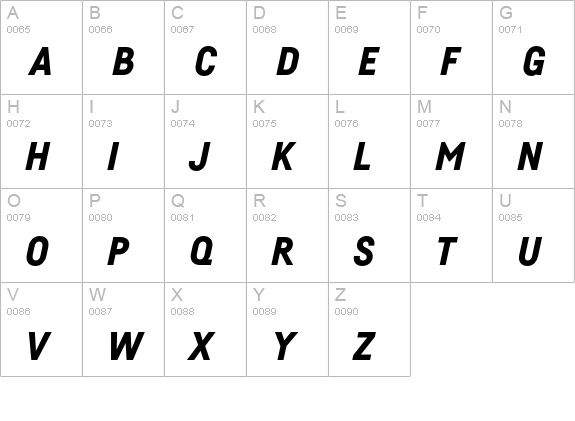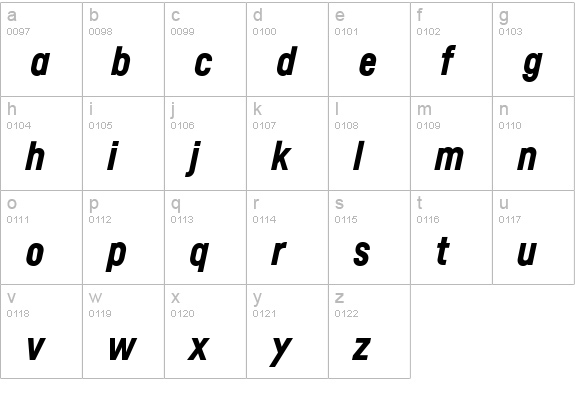
Fabrikat Black Italic is a maximum-weight, dramatic, italic variant in the Fabrikat typeface family \xE2\x80\x94 well suited to maximum-impact headlines, posters, and packaging.
Fabrikat Black Italic font is a modern and sleek typeface designed with a distinct touch of sophistication. Its sharp lines and elegant curves create a bold and eye-catching appearance, making it perfect for headlines, branding, and editorial design projects. The italic variation adds a touch of flair and dynamism to the overall look of the font, making it stand out in any design application. What sets Fabrikat Black Italic font apart is not just its visual appeal, but also its accessibility. This premium font is available for free download at FontsMarket.com, allowing designers and creatives to access its high-quality design without any cost barriers. Whether you are working on a personal project or a client commission, Fabrikat Black Italic font provides a versatile and stylish option that is both professional and impactful. With its sleek aesthetics and bold presence, Fabrikat Black Italic font is a versatile choice for designers looking to elevate their typography game. Download it for free today at FontsMarket.com and add a touch of modern sophistication to your next design project.